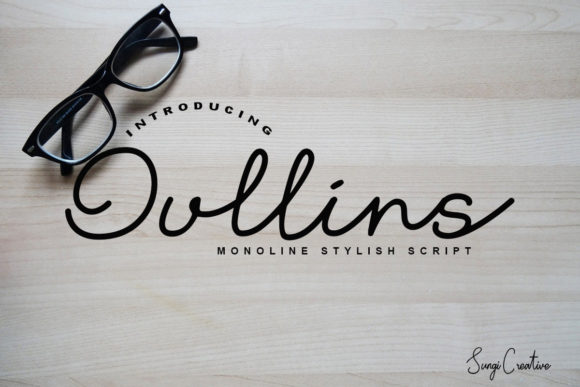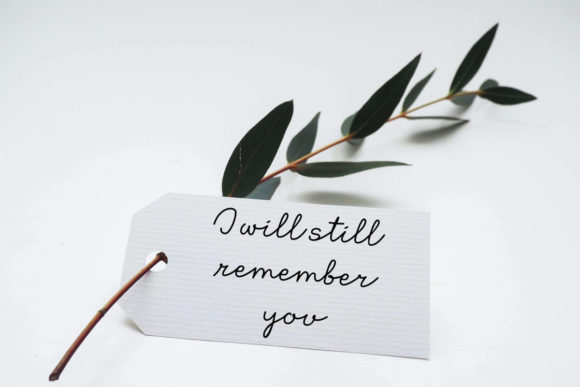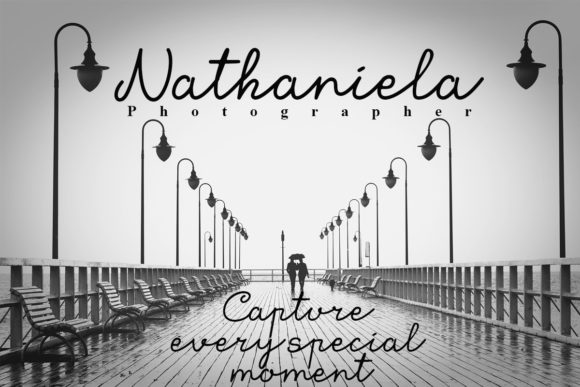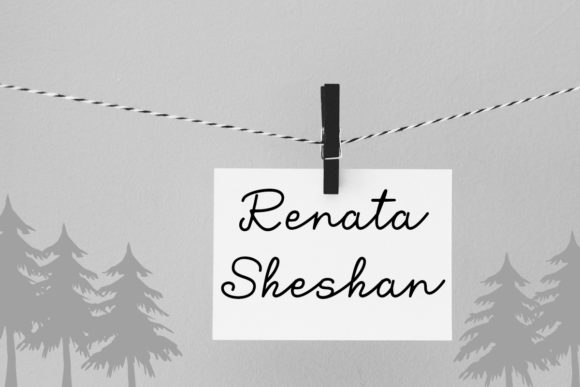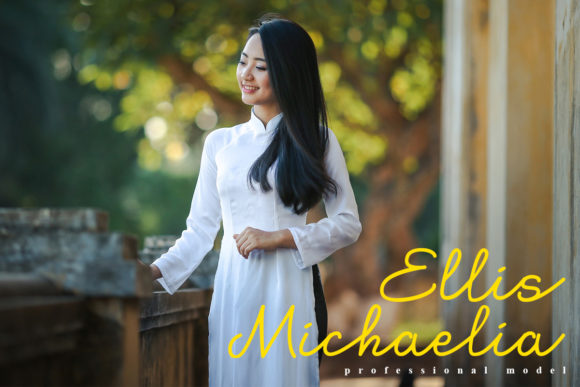
Oullins Font
About Oullins Font
Oullins is a lovely and delicate handwritten font. It has beautiful and well balanced characters and as a result, it matches a wide pool of designs. Add it to your most creative ideas and notice how it makes them come alive!